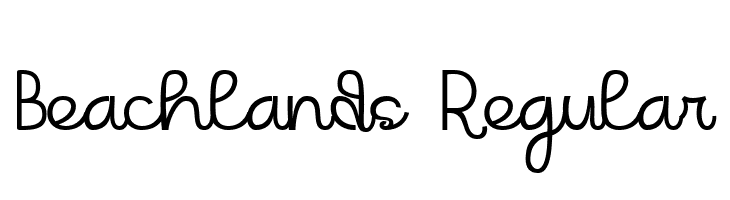
A fluid and elegant script font with smooth, flowing lines.
A bold, flowing script font with elegant curves and a friendly style.
A playful, whimsical font with cursive-like, flowing letters and unique flourishes.
A dynamic script font with elegant, flowing lines and cursive letterforms.
A playful and casual handwritten font with fluid, organic strokes.
A playful, bold handwritten font with thick, rounded strokes.
An elegant, flowing script font with a handwritten style.
A playful, handwritten font with smooth curves and a casual style.
A playful, whimsical font with a blend of curves and straight lines, ideal for creative projects.